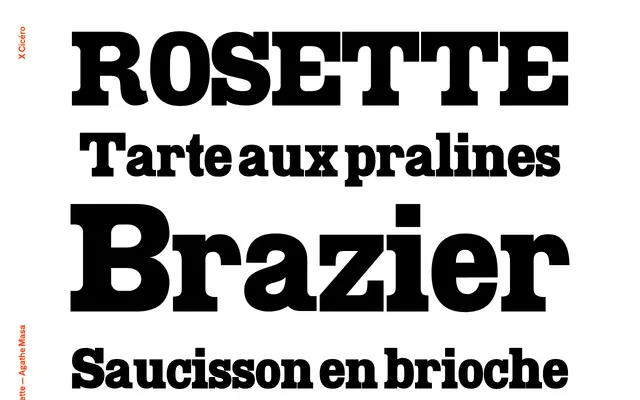
Rosette
A display typeface from X Cicéro shown entirely through a specimen of classic Lyonnaise dishes and culinary culture.
The specimen for Rosette is built entirely around the gastronomy of Lyon, setting typeface names such as quenelle, saucisson en brioche and cervelle de canut in what appear to be characterful display letterforms. The approach ties the typeface's identity to a strong regional vernacular. Beyond the specimen content, technical details such as weights, italics and language coverage are not disclosed on the page.
The page specimen uses large, characterful letterforms set across Lyonnaise culinary terms and phrases, suggesting a display serif with regional typographic flavour. The name and presentation point to a decorative, display-oriented classification.